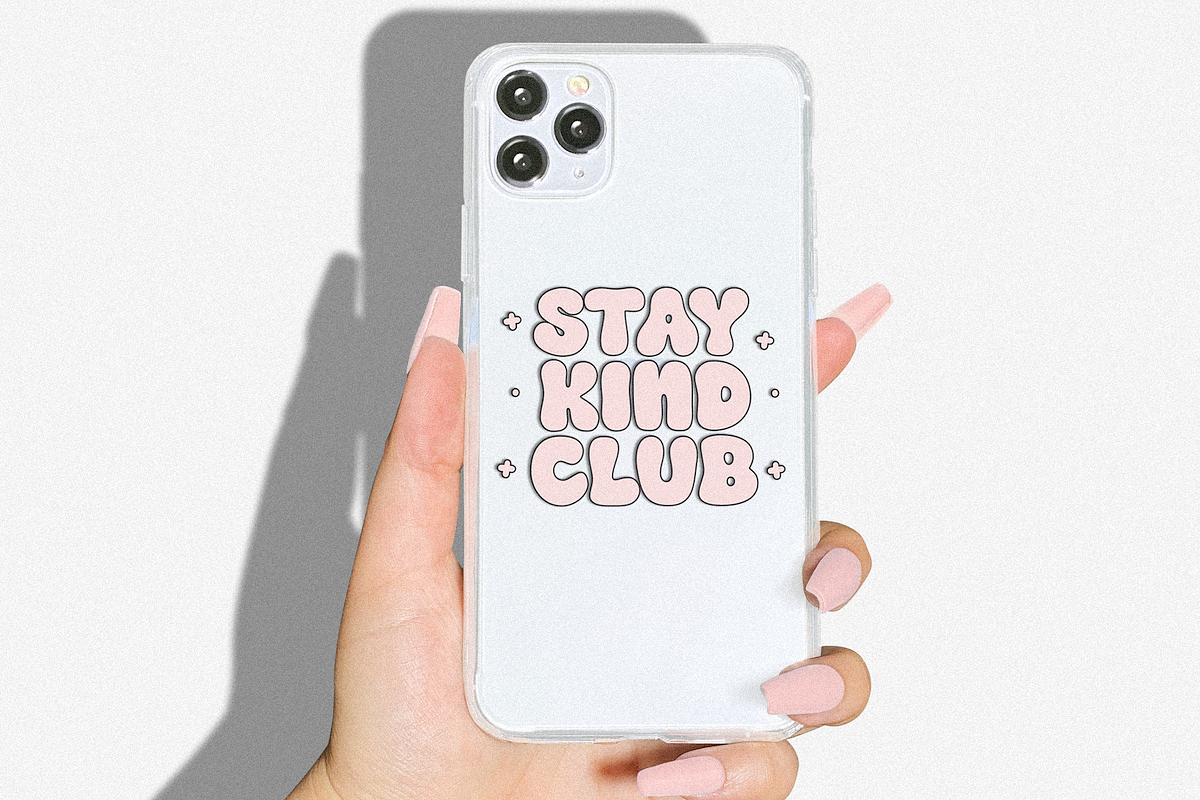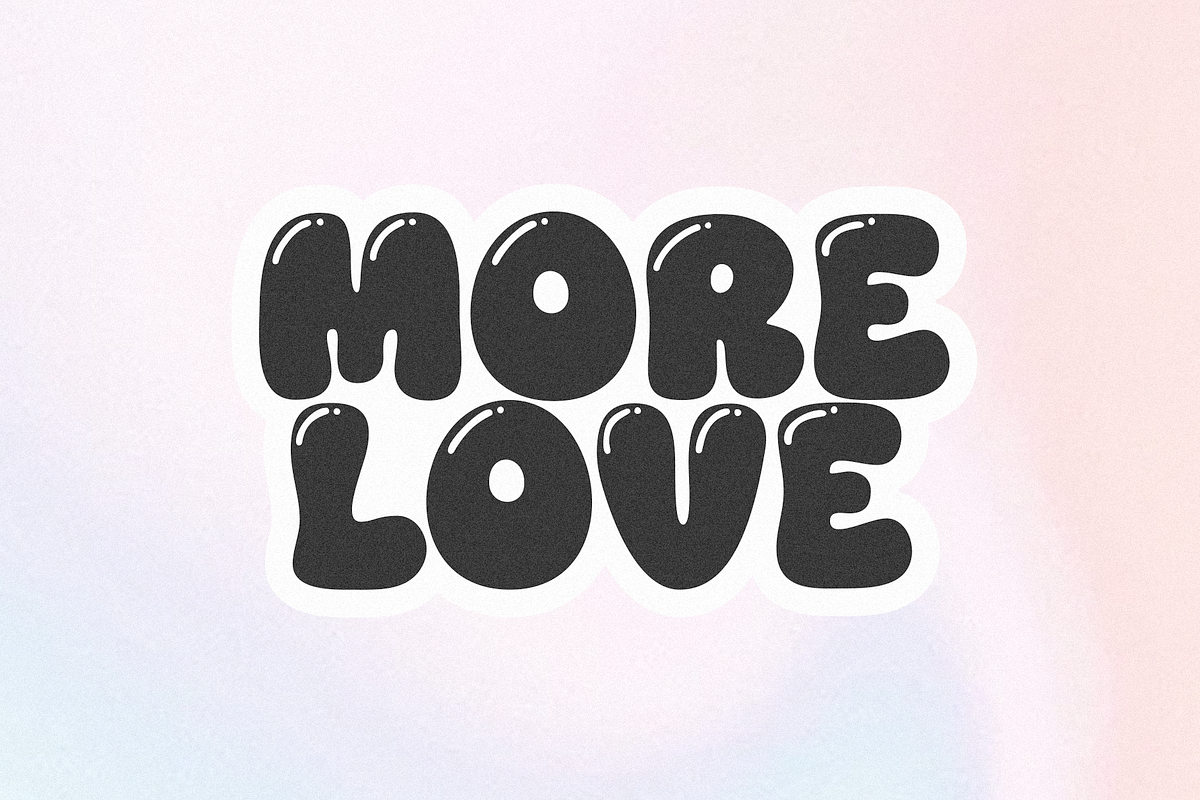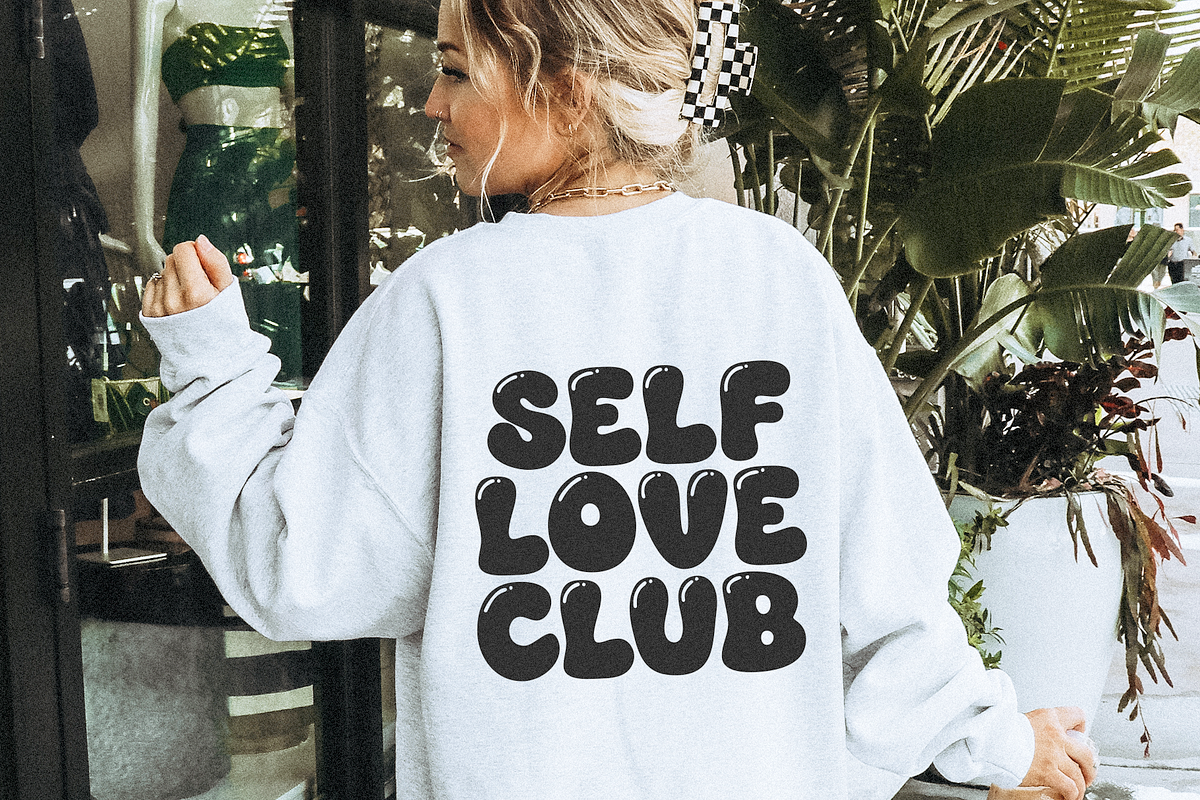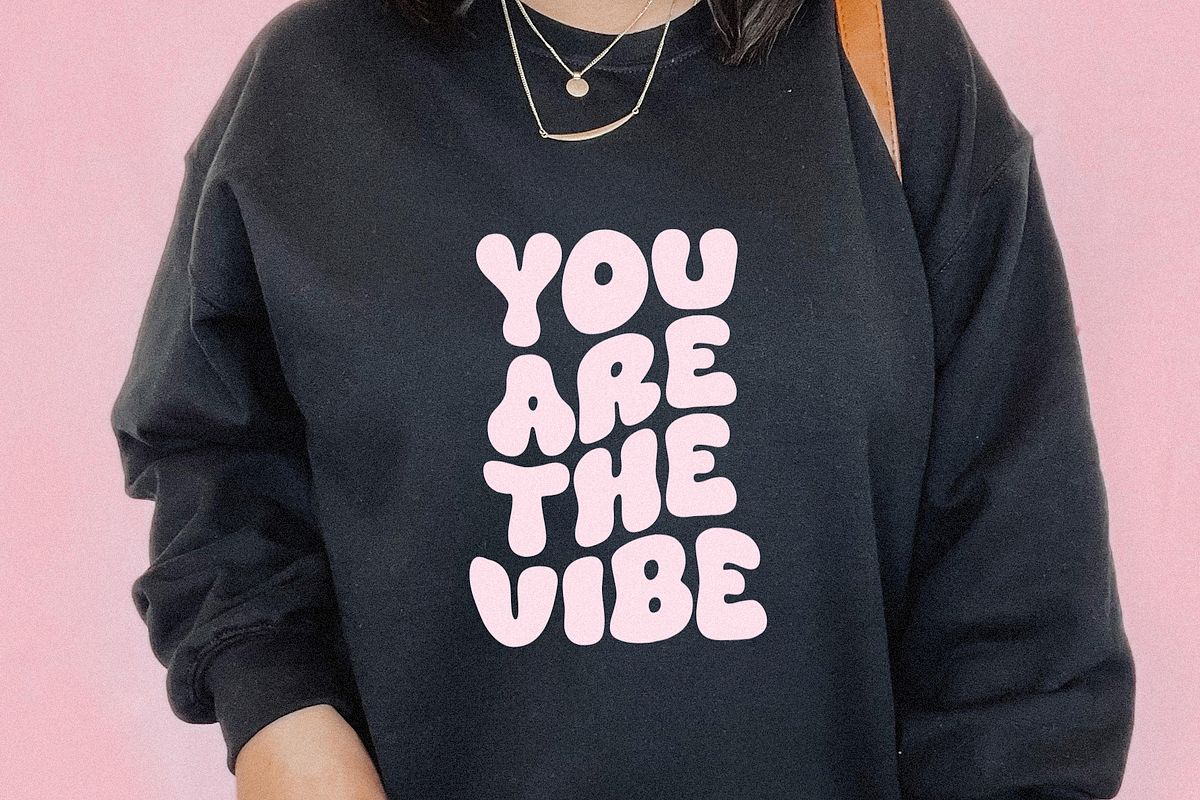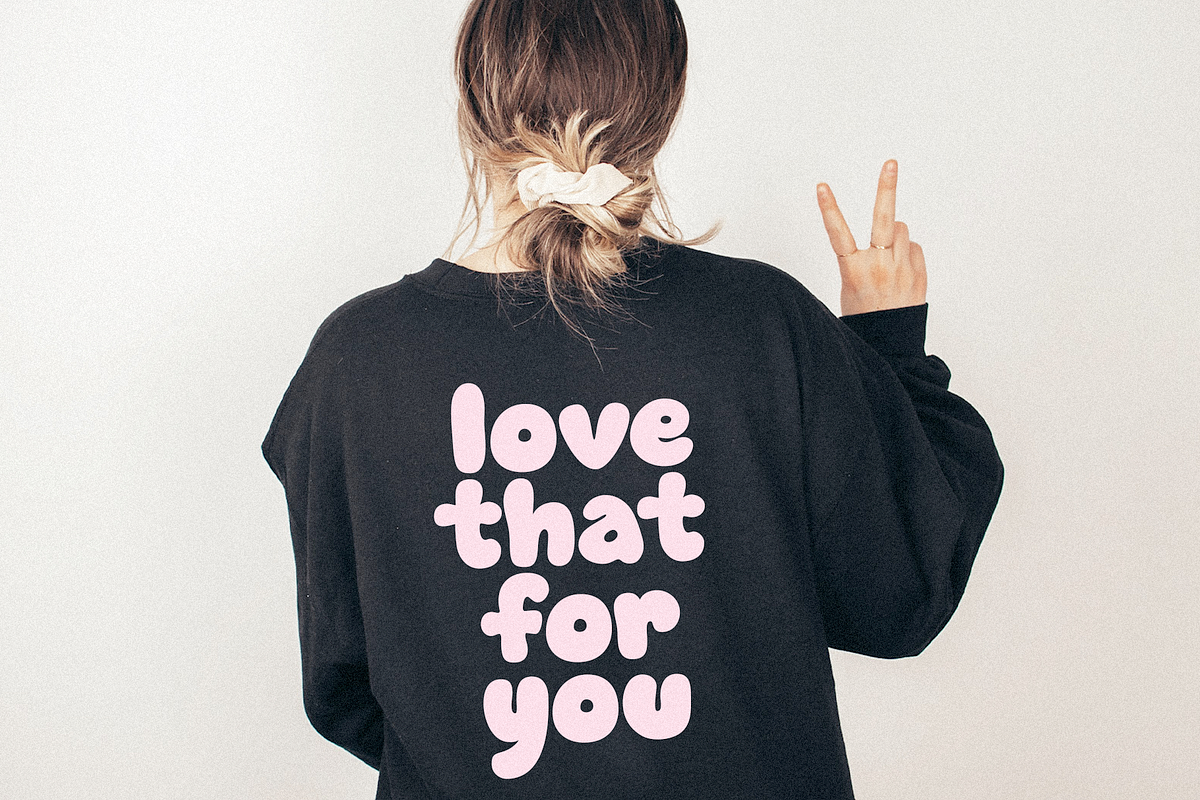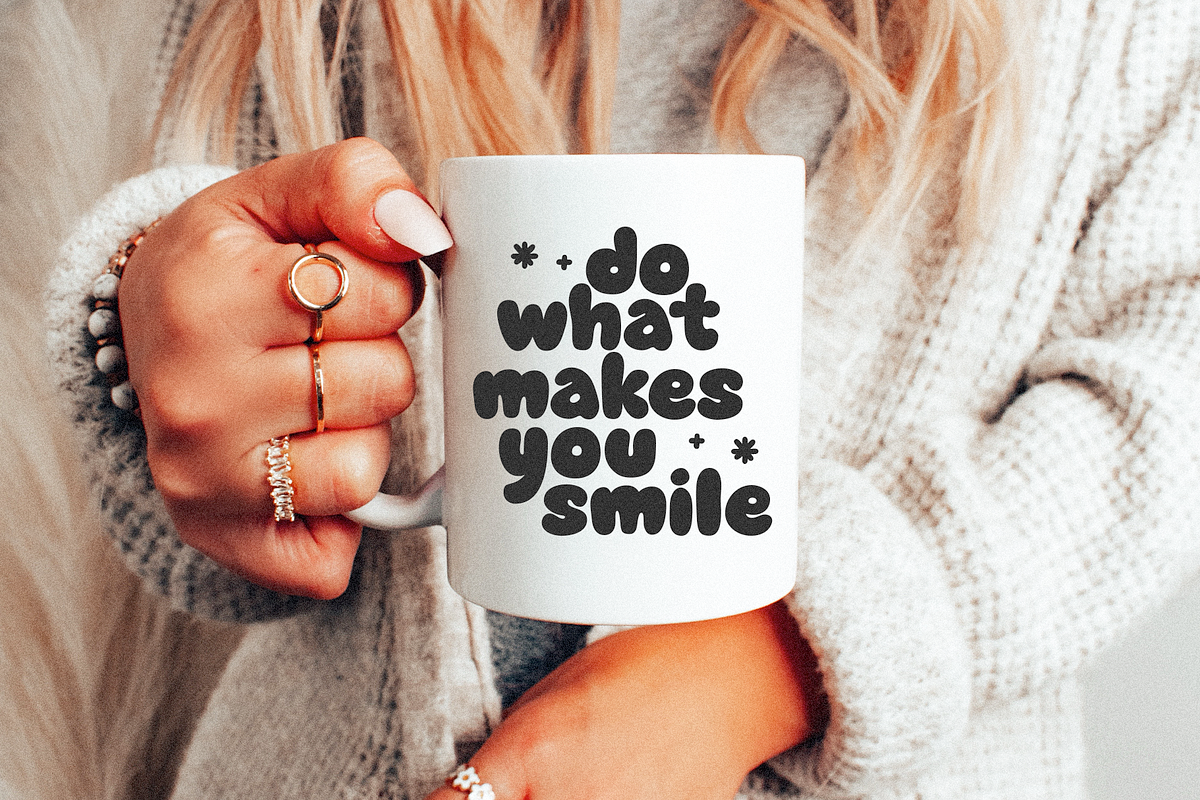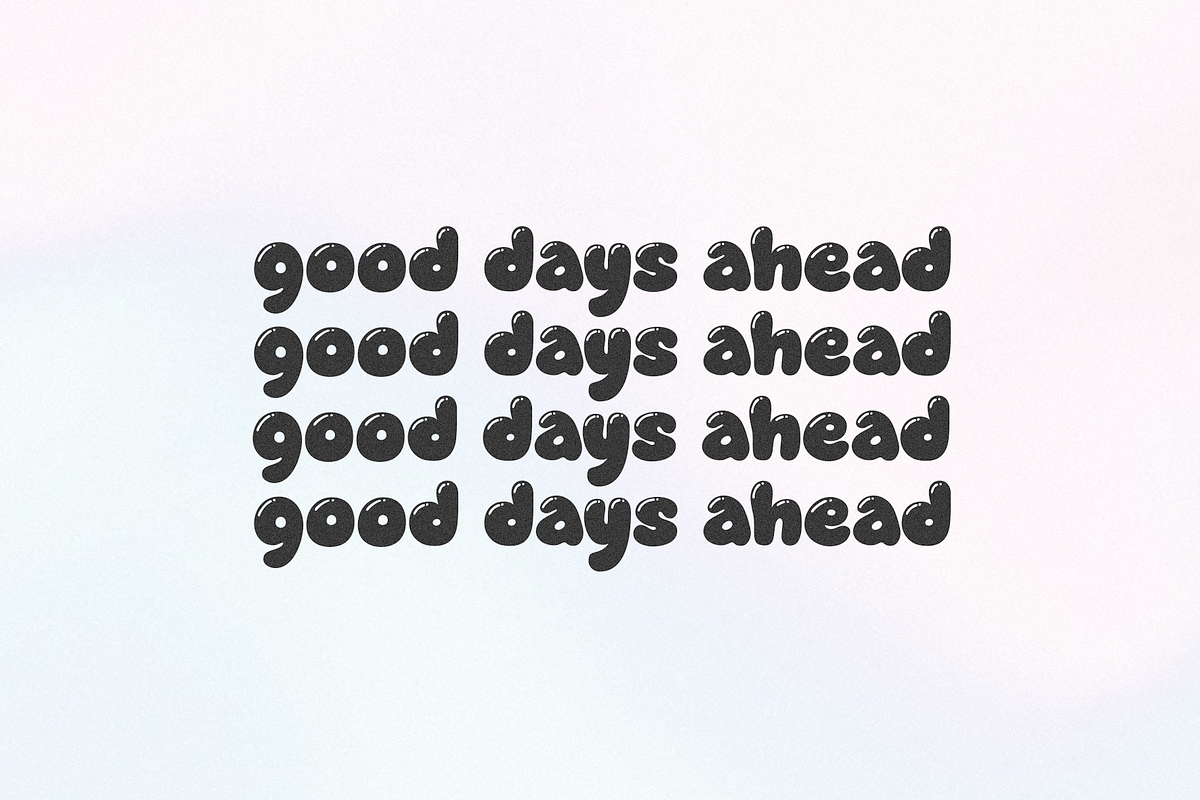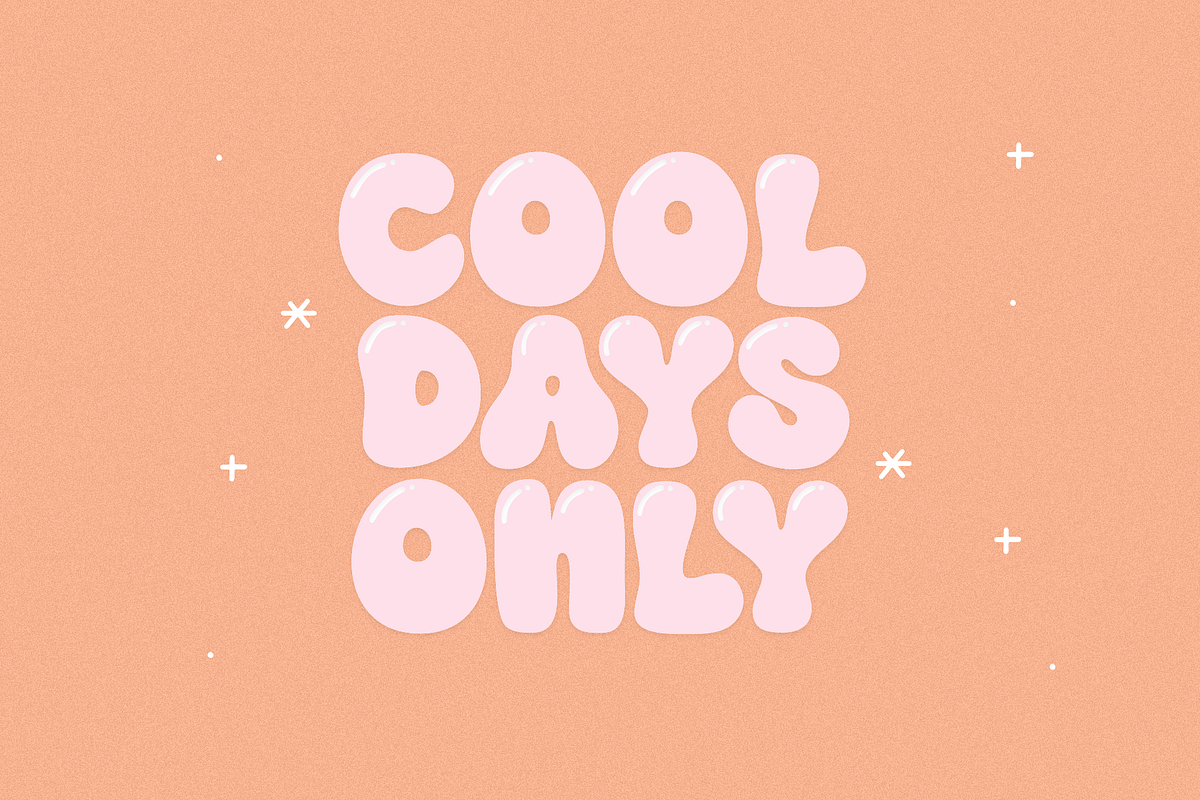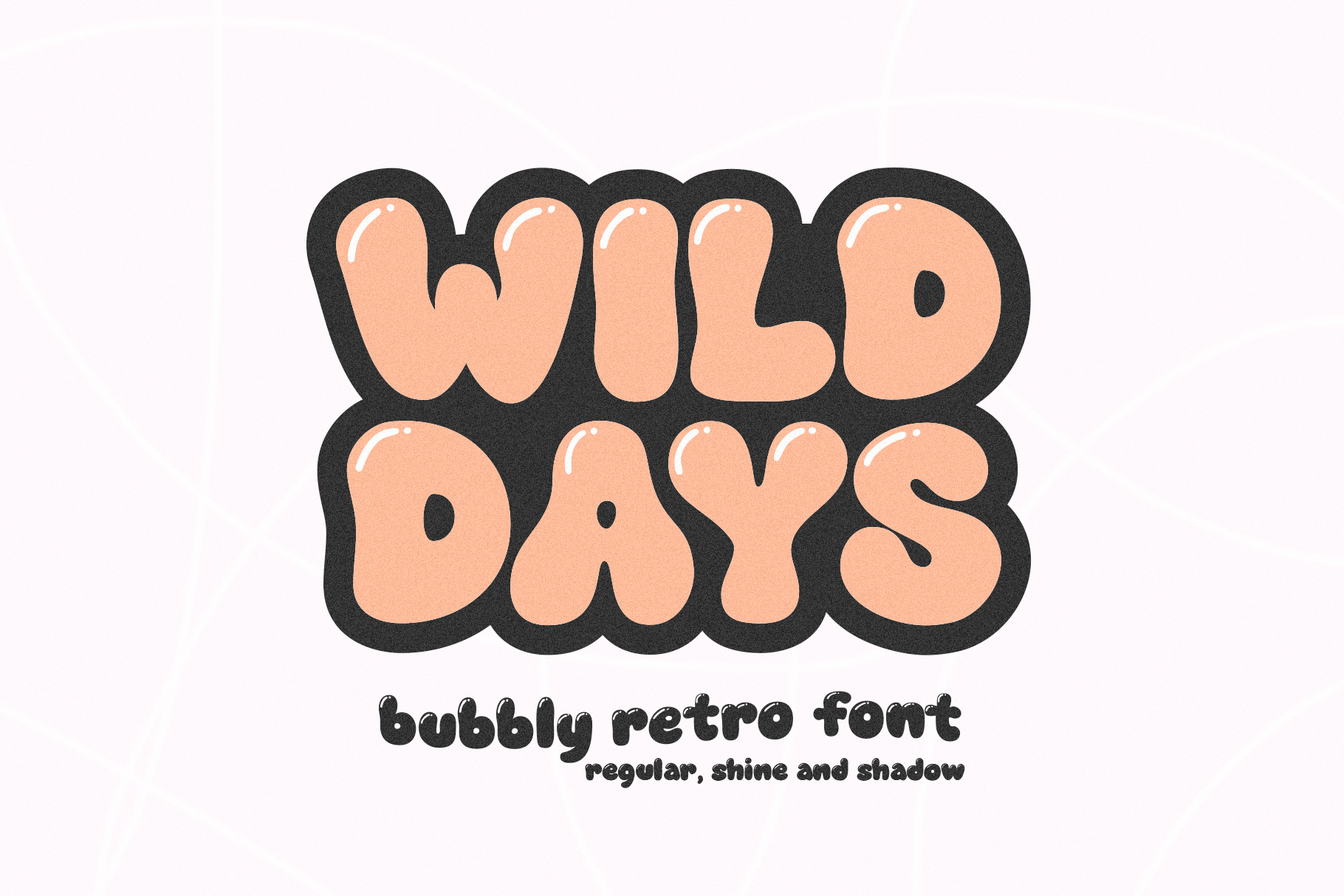
Wild Days | Bubbly Retro Font
Wild Days is a bubbly handwritten font!
Includes 3 fonts -
- regular
- shadow
- shine
Layer these fonts to create fun and unique words and quotes!